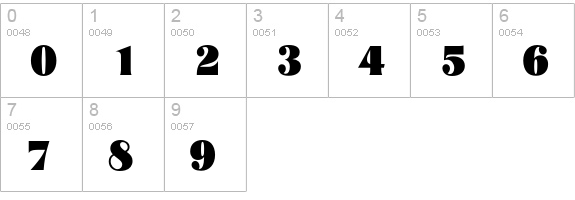
Nashville-Heavy is a heavy, high-impact variant in the Nashville typeface family \xE2\x80\x94 well suited to high-impact headlines, posters, and display advertising.
The Nashville-Heavy font is a bold and impactful typeface that commands attention with its strong and solid presence. Featuring thick and prominent letterforms, this font exudes power and confidence, making it perfect for headlines, titles, and other display purposes. Its sturdy design ensures readability even at larger sizes, while its modern and sleek aesthetic adds a touch of sophistication to any project. Best of all, the Nashville-Heavy font is available for free download at FontsMarket.com, making it easily accessible for designers and creatives looking to enhance their work with a striking and memorable typeface. Don't miss out on this opportunity to add a touch of boldness to your designs with the Nashville-Heavy font - download it today and make a statement!